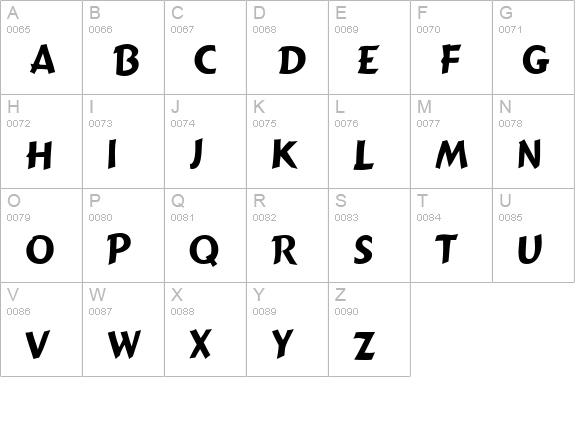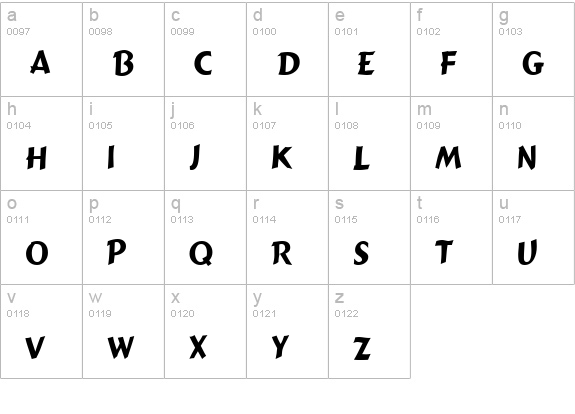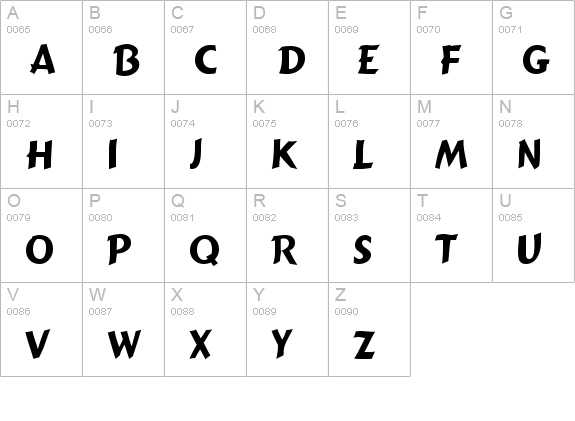
GremlinCaps Font Details
Introducing GremlinCaps font, a whimsical and playful typeface that is perfect for adding a touch of charm to your designs. With its unique hand-drawn style and quirky characters, GremlinCaps is sure to make your text stand out. This font is not only fun and eye-catching but also versatile, making it suitable for a wide range of projects such as posters, invitations, branding, and more. Its bold and uppercase letters give a bold statement and can easily catch the viewer's attention. Best of all, GremlinCaps font is completely free to download at FontsMarket.com. So go ahead and unleash your creativity with this delightful typeface that is sure to bring a smile to your audience's face.